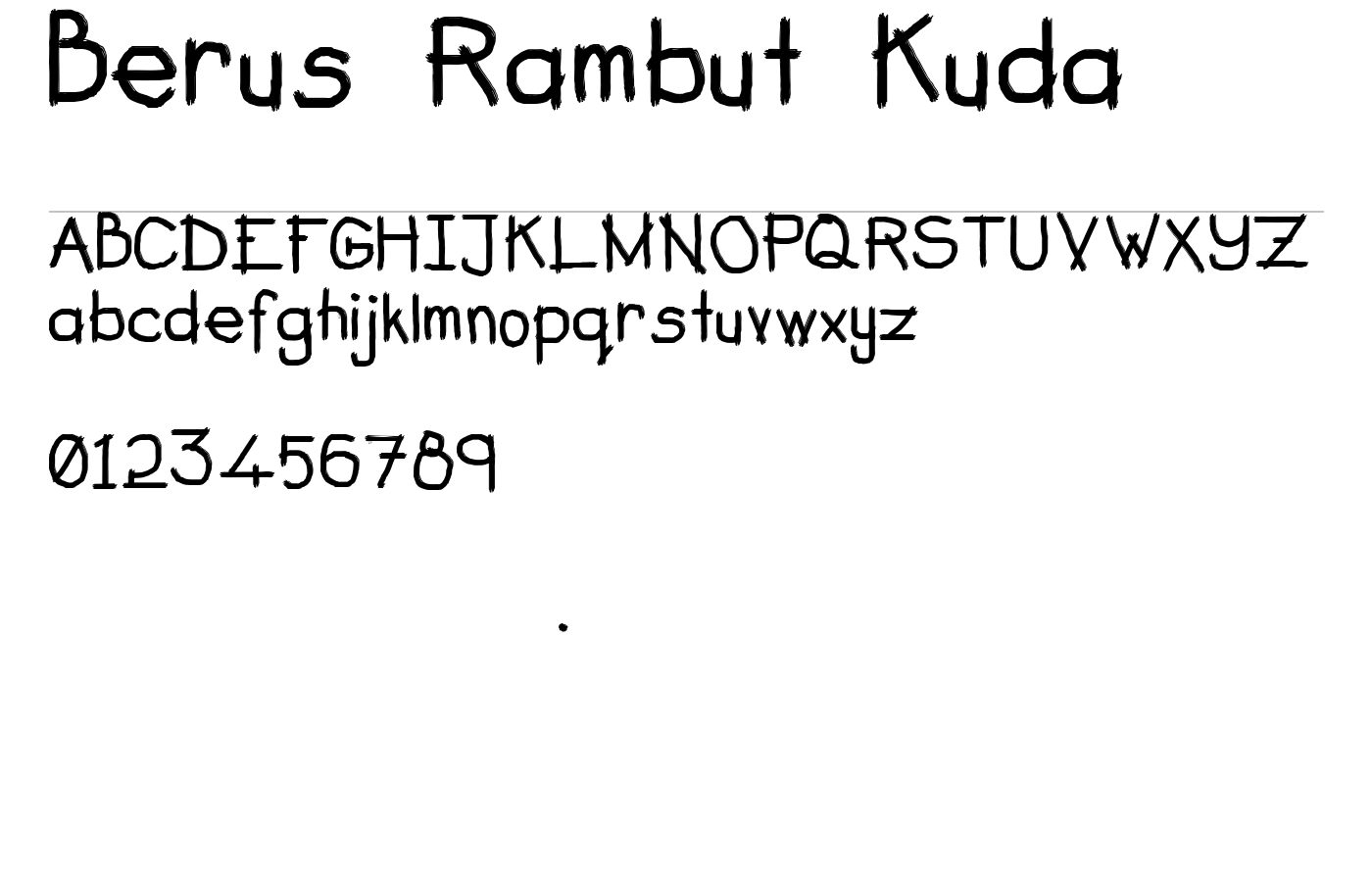
Berus Rambut Kuda is a playful, hand-drawn sans serif font with a casual, slightly rough texture that adds charm and character. Its irregular strokes and quirky letterforms make it ideal for creative projects, informal branding, and artistic designs that seek a friendly, approachable feel. This font works best for headlines, posters, and packaging where a unique, handcrafted style is desired.
Berus Rambut Kuda Font
About Berus Rambut Kuda Font